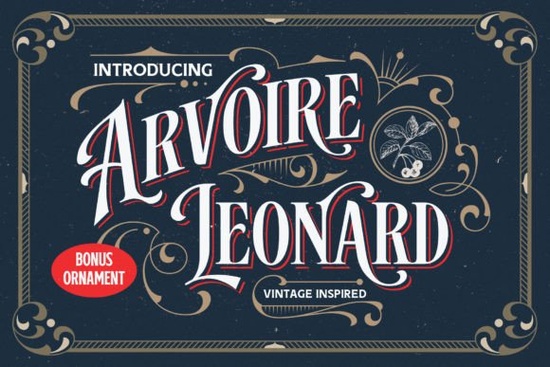
If you're a fan of vintage aesthetics with a modern twist, the Arvoire Leonard Font might just be what you're looking for. Inspired by 19th-century typography, this all-caps font combines elegance and classic charm, making it perfect for a variety of creative projects.
What Makes Arvoire Leonard Stand Out?
Arvoire Leonard is carefully crafted to bring a touch of nostalgia to your designs. It’s an all-caps font that has been meticulously designed with an elegant yet classic feel. This makes it ideal for adding a sophisticated and timeless look to your projects. Whether you're working on a poster, a label, or a logo, Arvoire Leonard can help you achieve that perfect blend of old and new.
Perfect for Display Purposes
One of the key features of Arvoire Leonard is its versatility. It's not just a pretty font; it's also highly functional. You can use it for a wide range of display purposes, such as:
- Posters: Add a touch of class to your event posters or promotional materials.
- Labels and Badges: Create eye-catching product labels or badges that stand out.
- Logos and Signboards: Develop a unique and memorable brand identity with a vintage flair.
- T-Shirts and Merchandise: Print your designs on t-shirts, mugs, and other merchandise for a classic look.
- Book Covers and Decorations: Enhance the visual appeal of your book covers or decorative items.
PUA Encoded for Easy Access
Another great feature of Arvoire Leonard is that it's PUA (Private Use Area) encoded. This means you can easily access all the glyphs and ligatures, even if your software doesn't support advanced OpenType features. This makes it incredibly user-friendly and accessible for both beginners and experienced designers.
How Does Arvoire Leonard Compare to Other Vintage Fonts?
While there are many vintage fonts available, Arvoire Leonard stands out with its unique blend of elegance and classic charm. Here’s how it compares to some other popular options:
Where Can I Use Arvoire Leonard?
Arvoire Leonard is incredibly versatile and can be used in a variety of creative projects. Here are some ideas:
- Branding and Logos: Create a unique and memorable brand identity with a vintage touch.
- Print-on-Demand Products: Design t-shirts, mugs, and other merchandise that stand out.
- Event Posters and Flyers: Add a classic and elegant look to your event promotions.
- Book Covers and Publications: Enhance the visual appeal of your books and publications.
- Decorative Items: Use it for home decor, signage, and other decorative elements.
Is Arvoire Leonard Right for My Project?
Arvoire Leonard is a fantastic choice if you’re looking for a font that combines elegance and classic charm. It’s particularly well-suited for projects that require a vintage aesthetic with a modern twist. However, if you need a more playful, rustic, or bold font, you might want to explore other options like the Simple Grinches Font, Retro Vintage Font, or Chunky Retro Font.
Final Thoughts
Arvoire Leonard is a beautifully designed font that can add a touch of elegance and classic charm to your creative projects. Its versatility and PUA encoding make it a user-friendly and accessible option for designers, crafters, and small businesses. Whether you’re working on a poster, a logo, or a piece of merchandise, Arvoire Leonard can help you achieve that perfect blend of old and new.